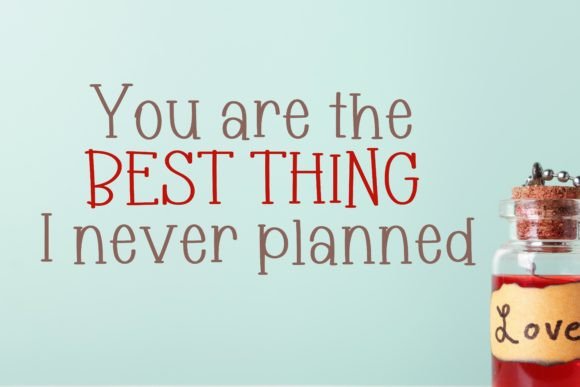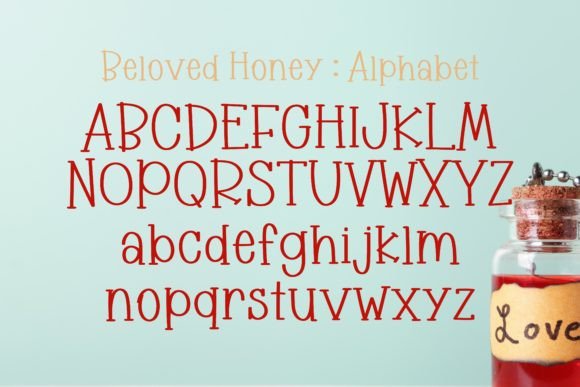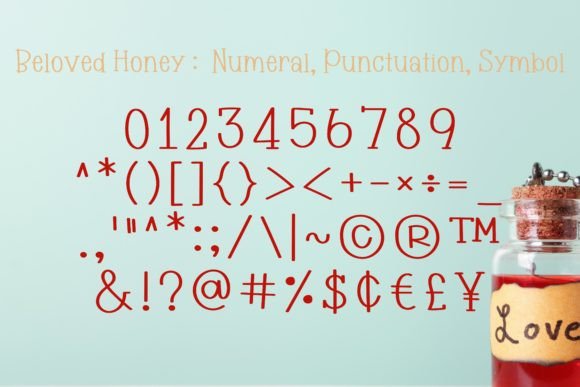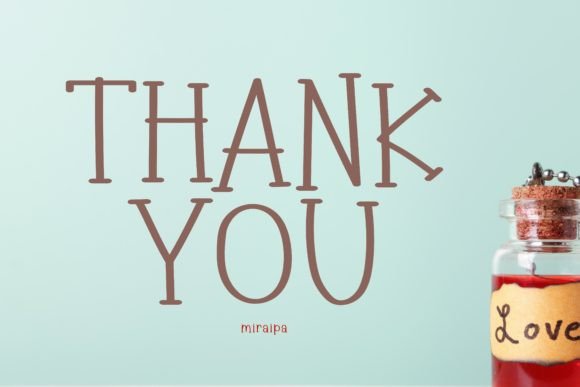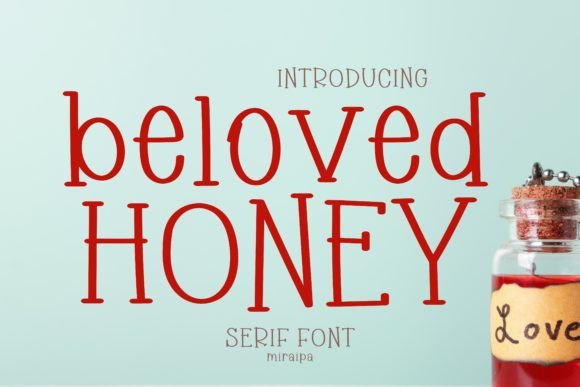
Introducing Beloved Honey Font: The Sweetest Addition to Your Design Collection
Are you tired of using the same old fonts in your designs? Look no further! We’re thrilled to introduce Beloved Honey Font, a lovely handwritten serif font that’s sure to add a joyful touch to your creations. With its unique charm and character, Beloved Honey is the perfect addition to your design collection.
What Makes Beloved Honey Font So Special?
Beloved Honey Font is a beautifully crafted handwritten serif font that’s designed to bring a touch of warmth and personality to your designs. Its elegant and flowing lines make it perfect for a wide range of projects, from wedding invitations and party decorations to branding and marketing materials.
One of the standout features of Beloved Honey Font is its unique blend of classic and modern elements. The font’s serif details add a touch of sophistication, while its handwritten feel keeps it friendly and approachable. This makes it an excellent choice for designers who want to create designs that are both elegant and relatable.
How Beloved Honey Font Can Elevate Your Designs
Adding Beloved Honey Font to your design collection can instantly elevate your creations and make them stand out from the crowd. Here are just a few ways this beautiful font can enhance your designs:
- Adds a touch of whimsy: Beloved Honey Font has a playful, handwritten feel that’s perfect for designs that need a bit of personality.
- Creates a sense of warmth: The font’s elegant lines and serif details create a sense of warmth and coziness, making it perfect for designs that need to evoke a sense of comfort and approachability.
- Perfect for branding: Beloved Honey Font is a versatile font that can be used for a wide range of branding projects, from logos and business cards to packaging and marketing materials.
- Great for crafty projects: Whether you’re creating DIY crafts, party decorations, or handmade gifts, Beloved Honey Font is a great choice for adding a personal touch to your projects.
Tips for Using Beloved Honey Font in Your Designs
Here are a few tips for getting the most out of Beloved Honey Font in your designs:
- Use it as a headline font: Beloved Honey Font is perfect for headlines and titles, where its elegant lines and serif details can really shine.
- Pair it with other fonts: Beloved Honey Font pairs well with a wide range of fonts, from clean and modern sans-serifs to elegant script fonts.
- Experiment with colors: Beloved Honey Font looks great in a wide range of colors, from bright and bold to soft and pastel.
- Use it for body text: While Beloved Honey Font is perfect for headlines, it’s also a great choice for body text, where its readability and elegance can really shine.
Key Features of Beloved Honey Font
- Lovely handwritten serif font
- Unique blend of classic and modern elements
- Elegant and flowing lines
- Perfect for a wide range of projects, from wedding invitations to branding and marketing materials
- Great for crafty projects, such as DIY crafts and party decorations